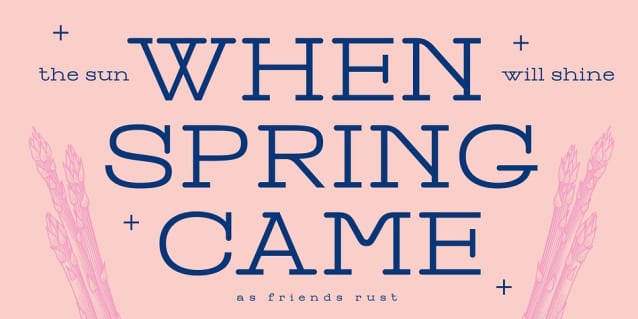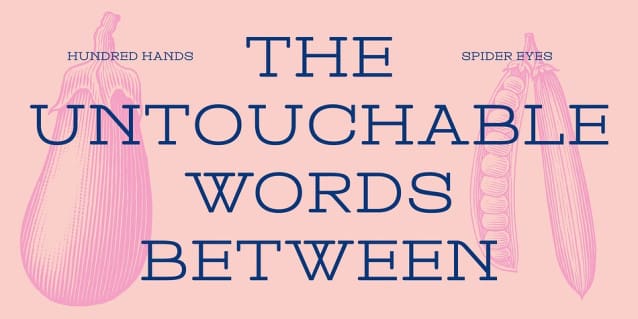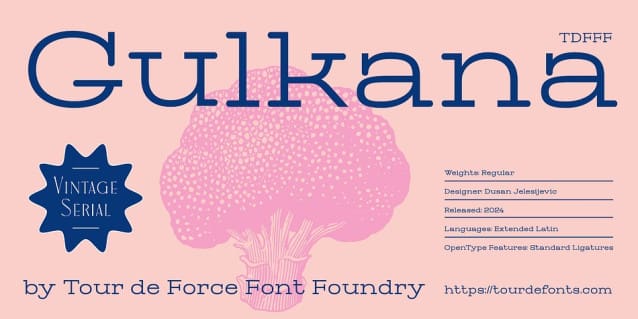
Gulkana Font
Gulkana Font is new addition into Vintage Serials font families. With specific serif designs, generous width and sans serif design, Gulkana looks like mixture of slab serif and typewritter fonts inspired with retro influences.
It’s ideal for package design, posters and branding campaigns. Gulkana comes with Standard Ligatures as OpenType features.